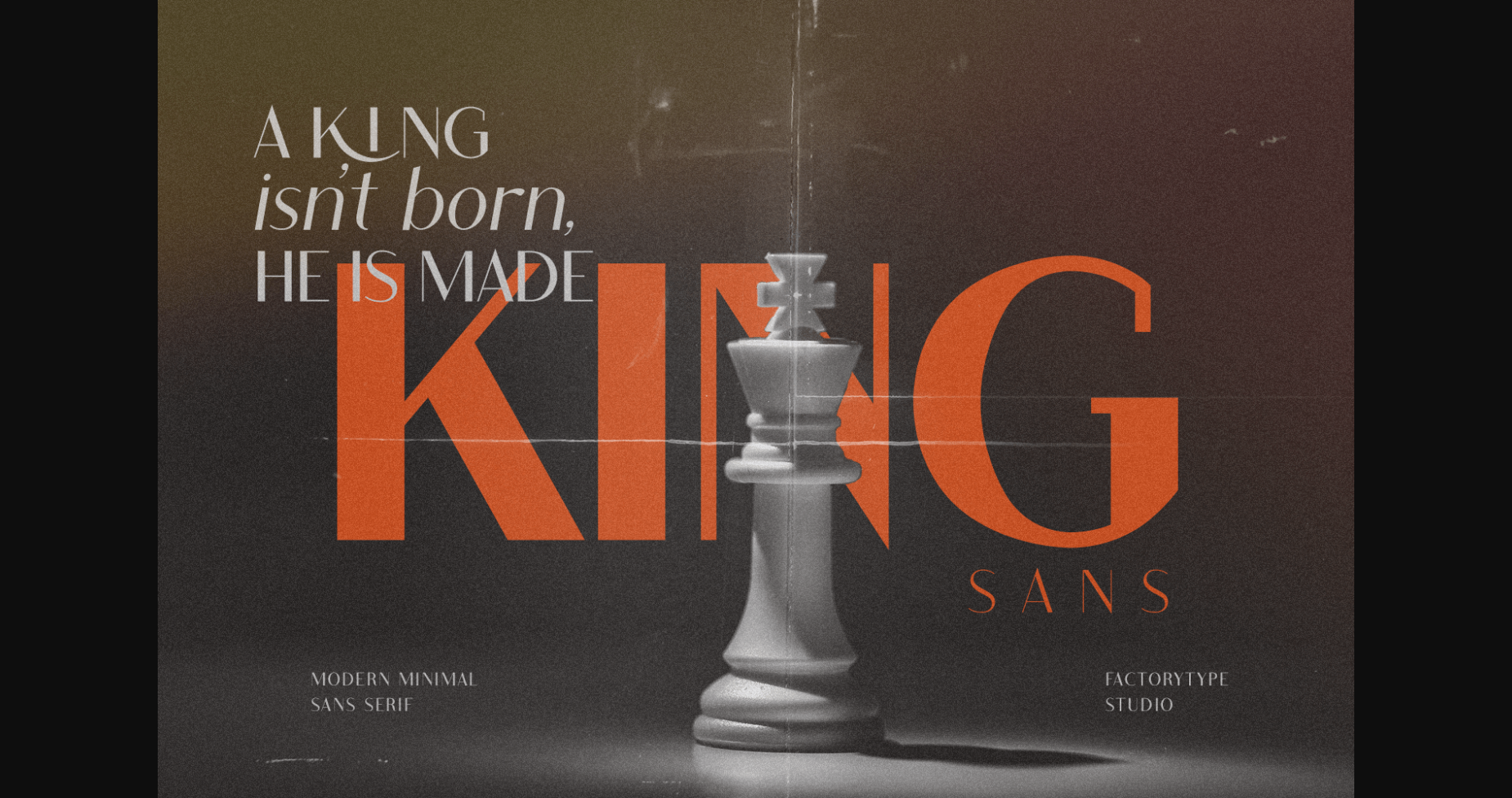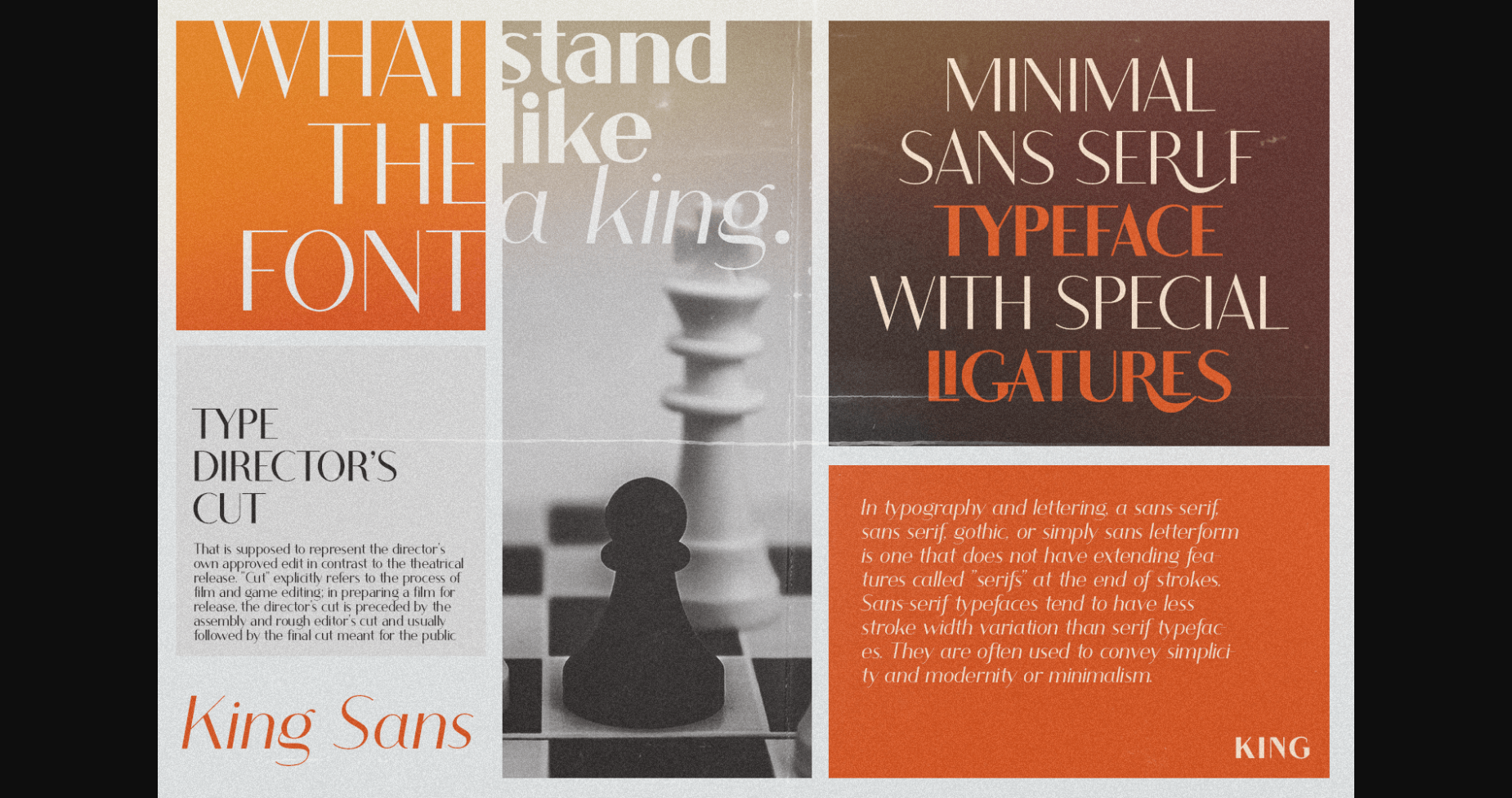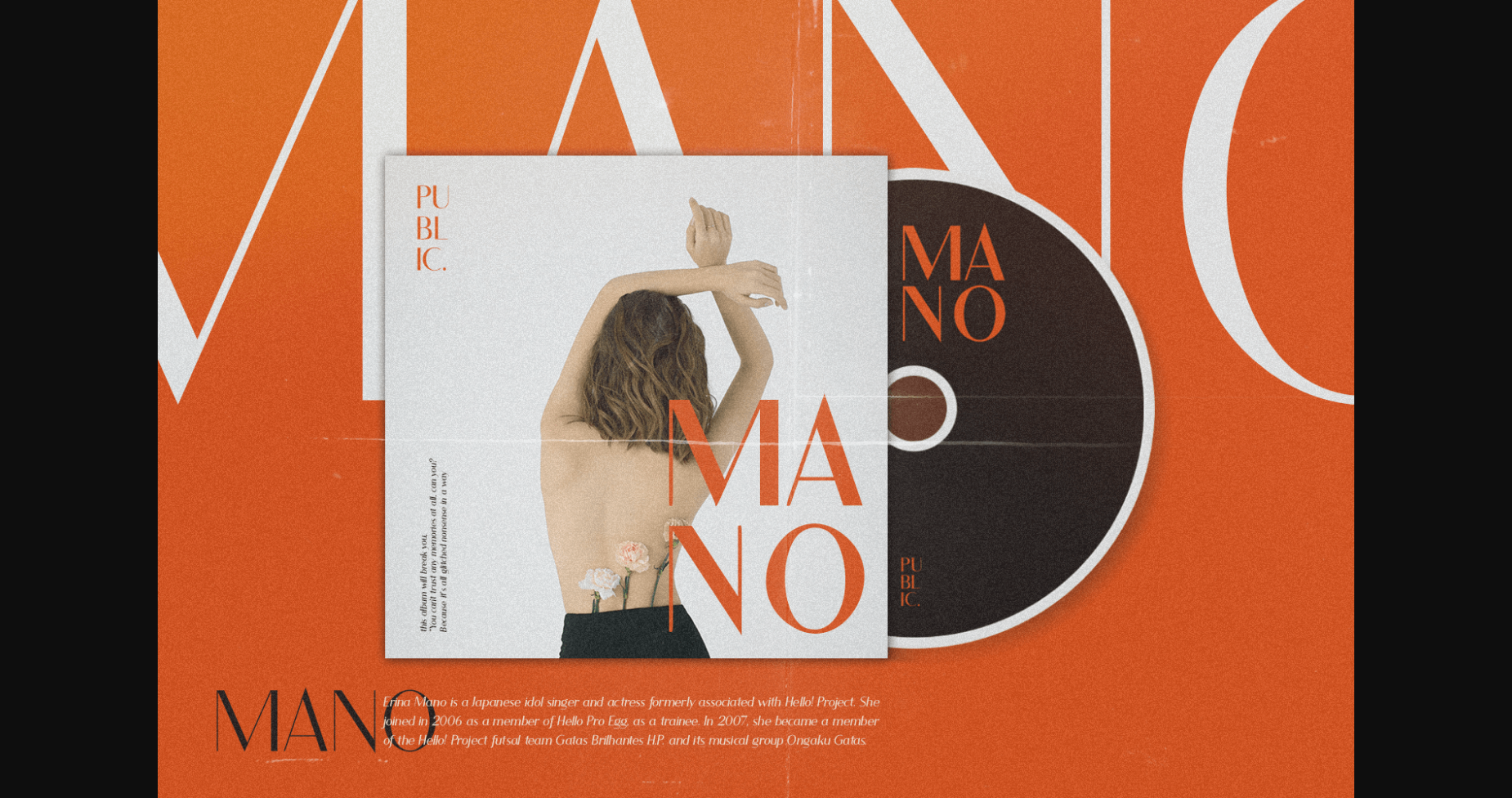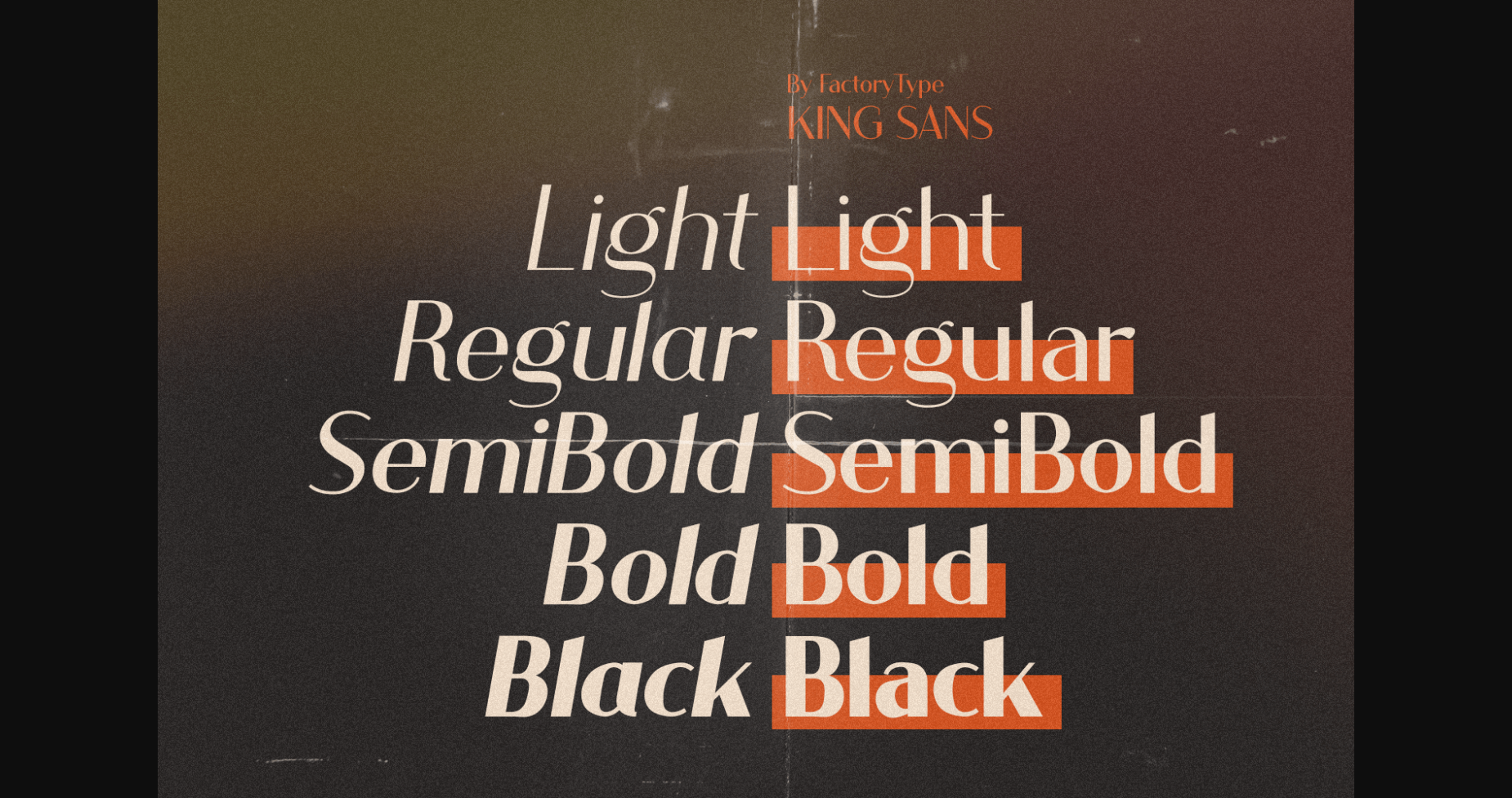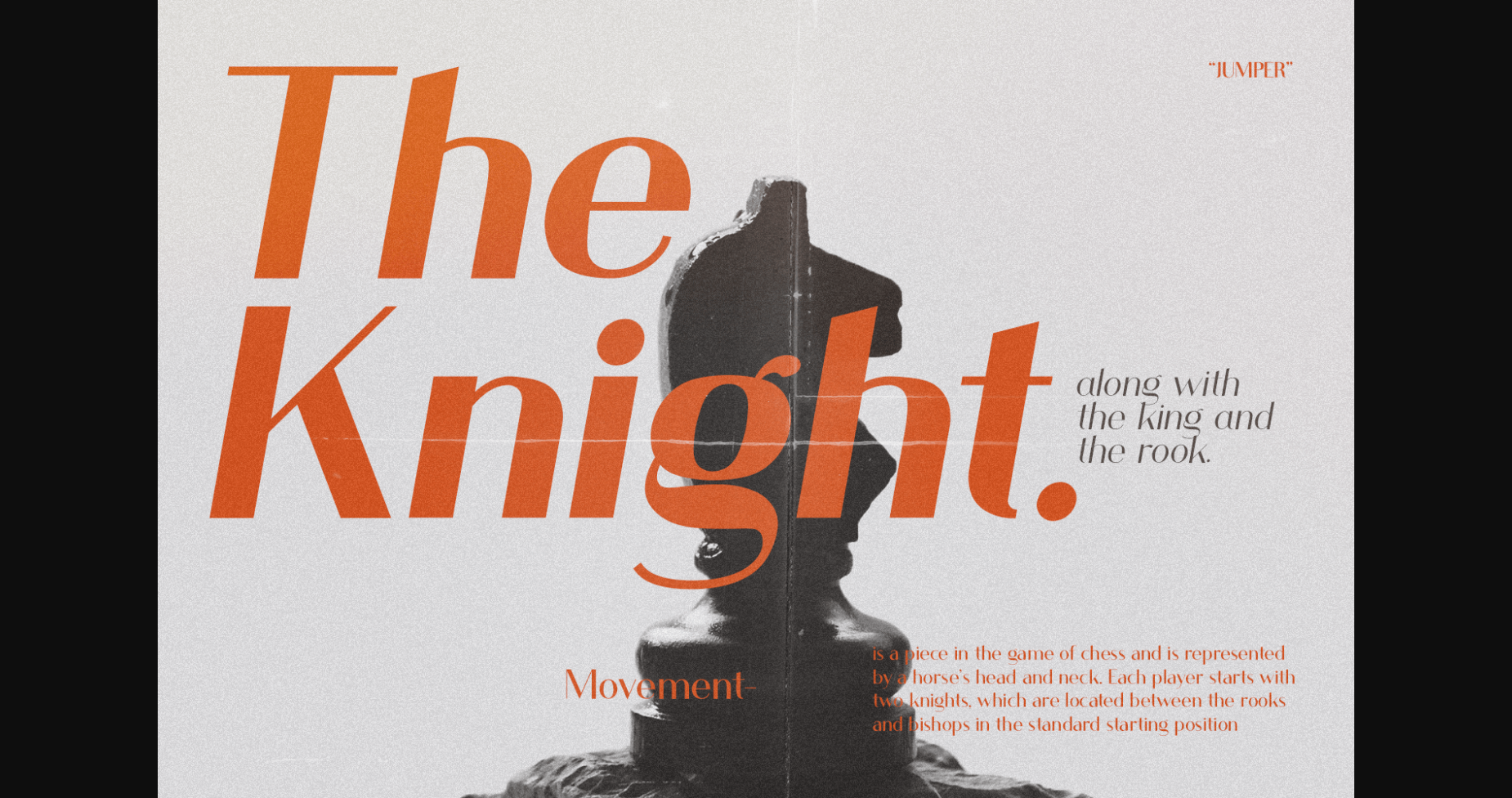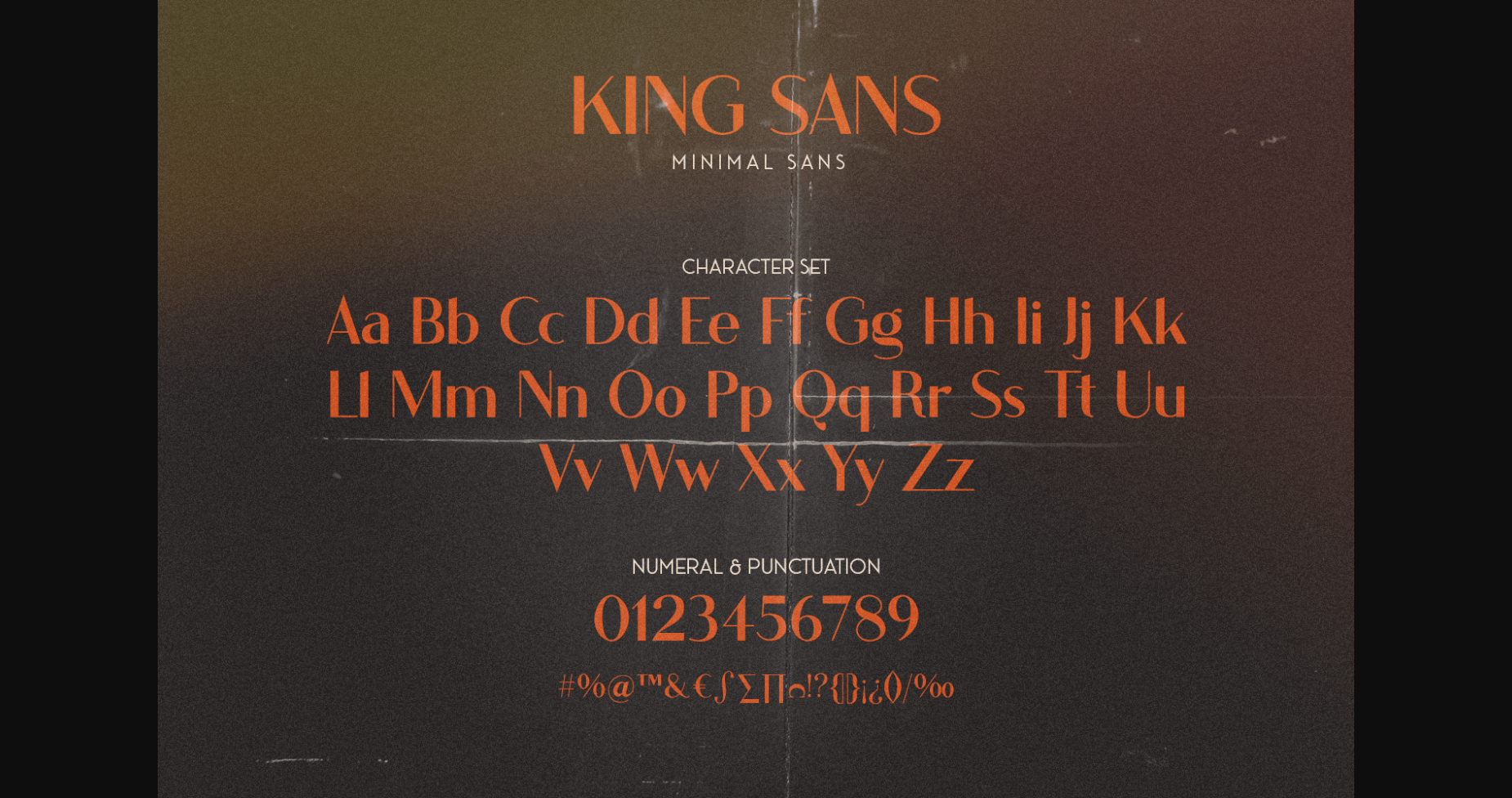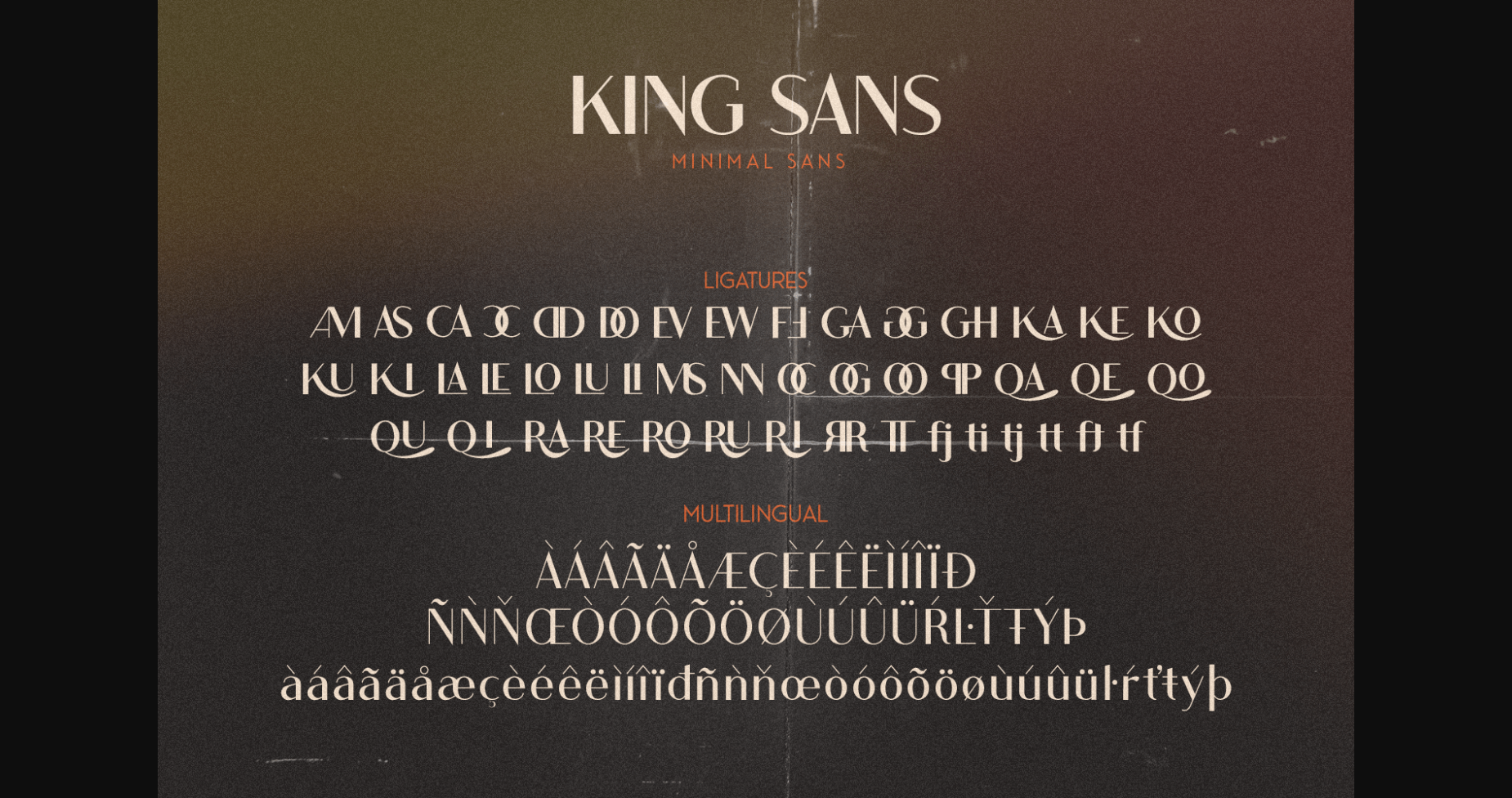
About King Font
King is a trendy, modern sans serif font that is perfect for design projects. The casual and minimal style make this typeface well-suited for logos, retro or modern branding, or any other design need you may have.